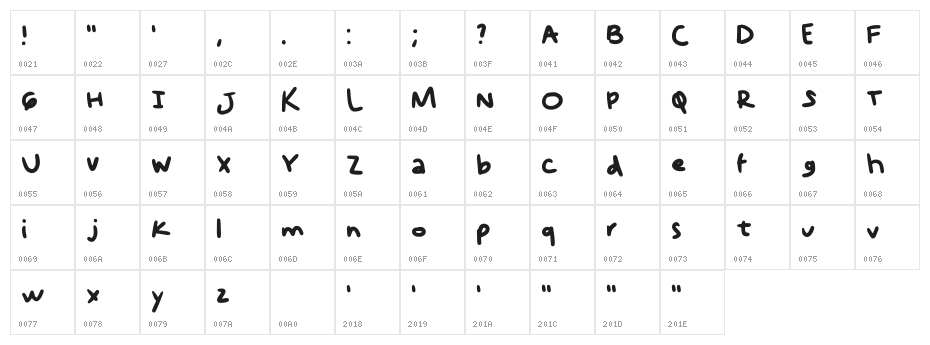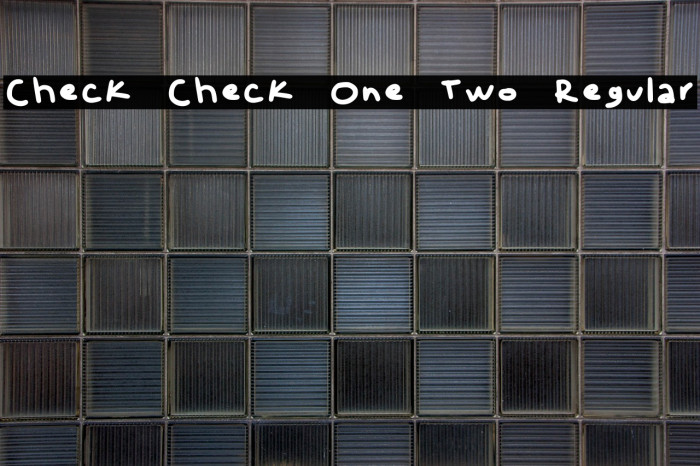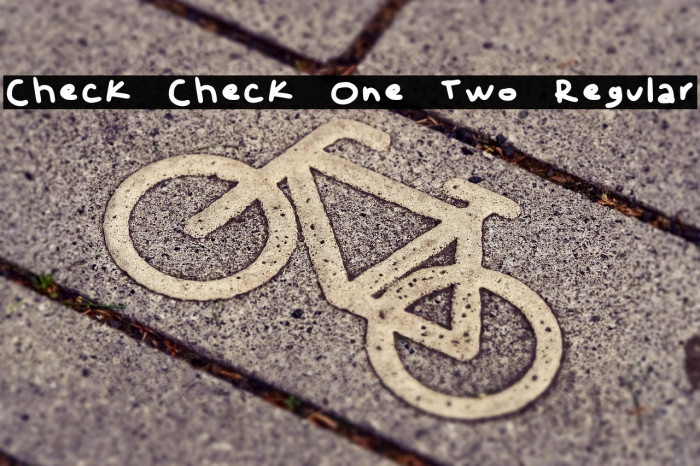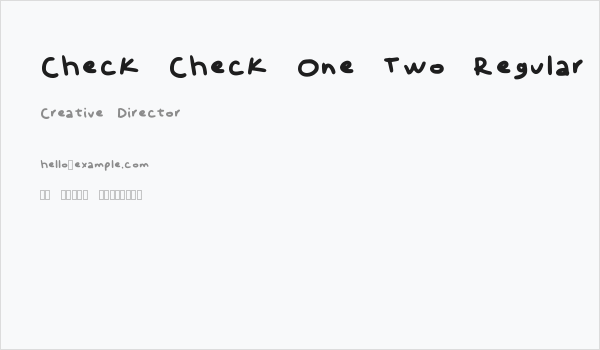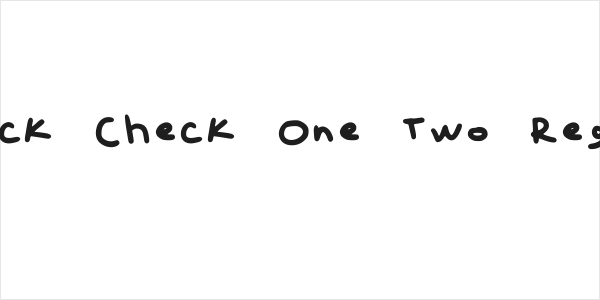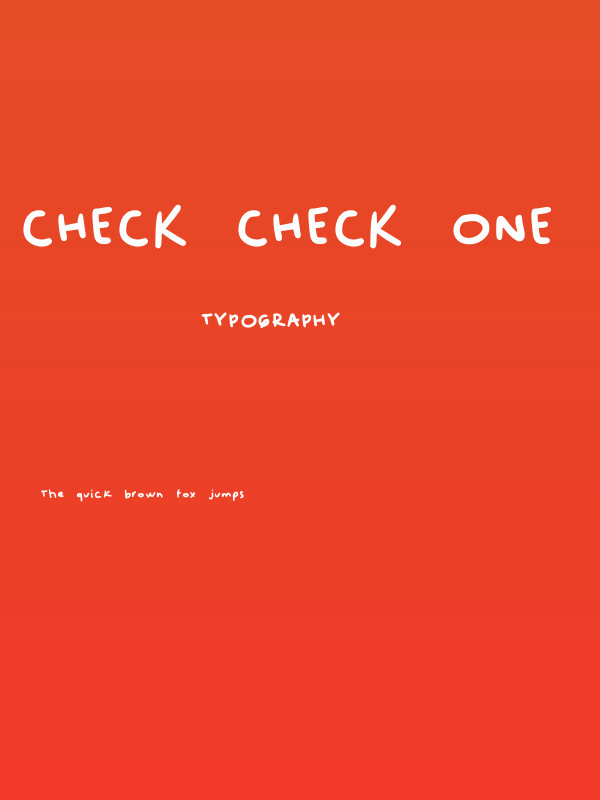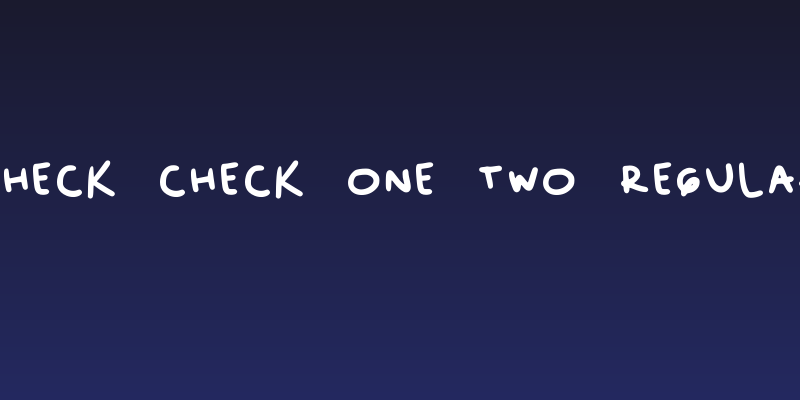
Check Check One Two Regular Font
Check Check One Two Regular Description
This font features a playful and informal handwritten style, characterized by its irregular and slightly wavy lines. The letters have a casual, friendly appearance, with rounded edges and a consistent stroke width that gives it a uniform look. The uppercase and lowercase letters are well-balanced, maintaining a cohesive style throughout. The numerals and special characters follow the same design principles, ensuring a harmonious overall appearance. This font exudes a sense of approachability and creativity, making it suitable for projects that require a personal touch.
| Overall Style | Casual |
| Use Case | Logos, Headlines, Informal text |
| Proposed Projects | Ideal for greeting cards, children's books, personal blogs, and creative branding projects. |